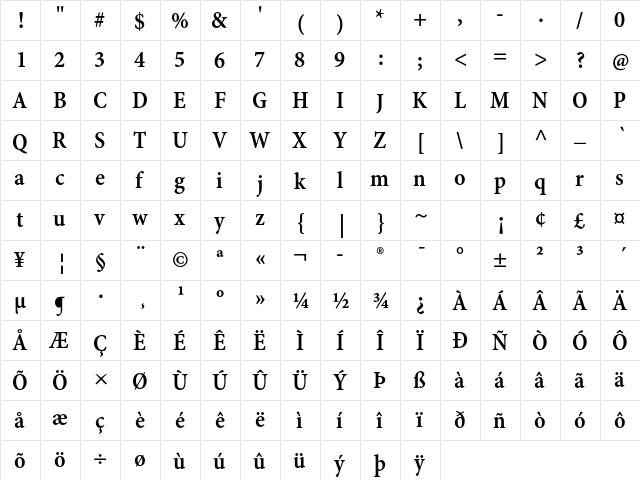
Minion Pro Semibold Cond Caption
Semibold Cond Caption ·  Robert Slimbach ·
DesignerRobert Slimbach
Design Context for Minion Pro Typeface
Minion Pro offers clean, dependable letterforms without strong stylistic allegiance, making it a practical choice for designers who need flexibility. The heavy weight commands attention and anchors typographic hierarchies. The condensed width makes it efficient for tight spaces without sacrificing legibility.
Pro Tip: Use Minion Pro in both headline and body roles to test its range before committing to a single application.